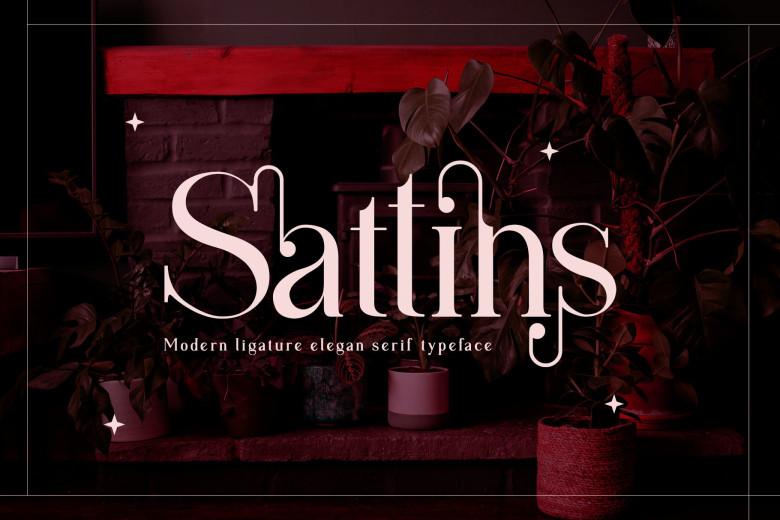
Sattins Font
Sattins is a modern and distinct serif font. Masterfully designed to become a true favorite, this font has the potential to bring each of your creative ideas to the highest level!
Sattins Modern Serif Font